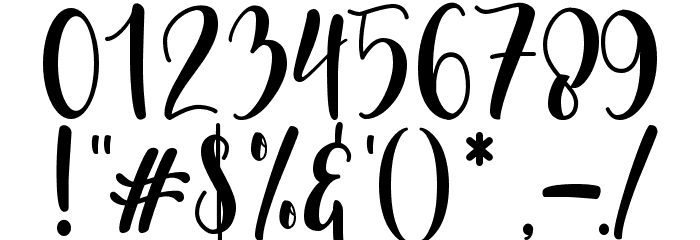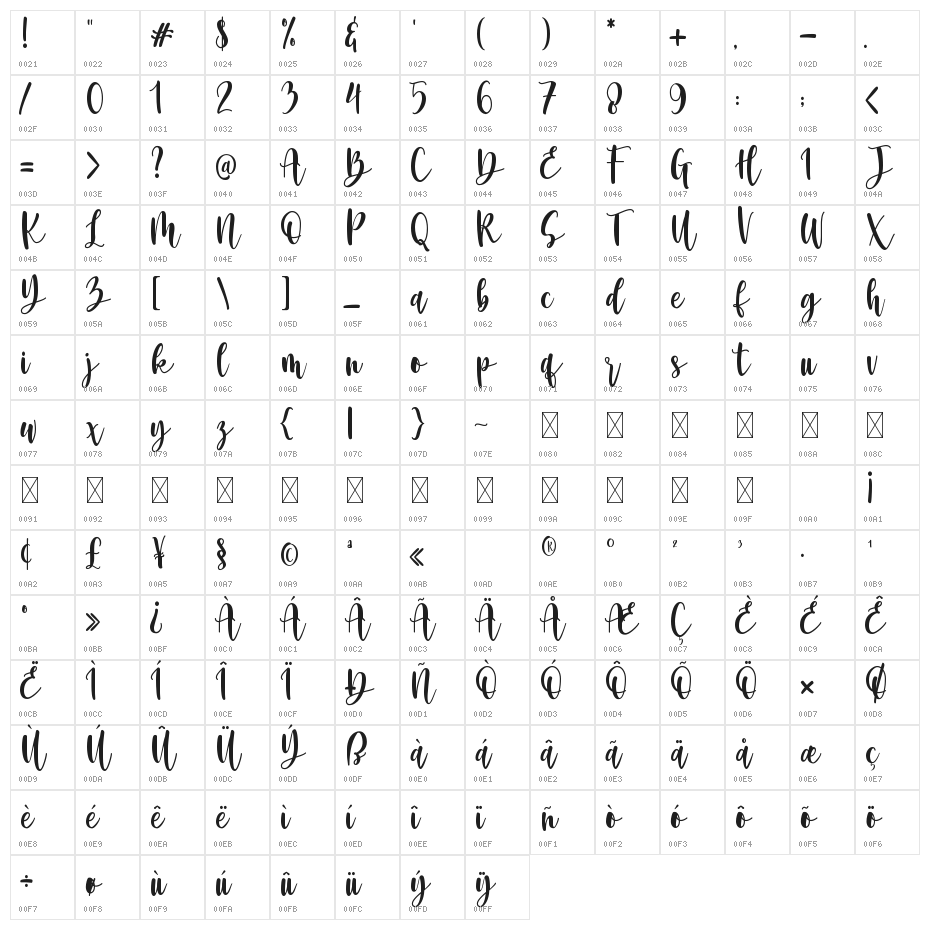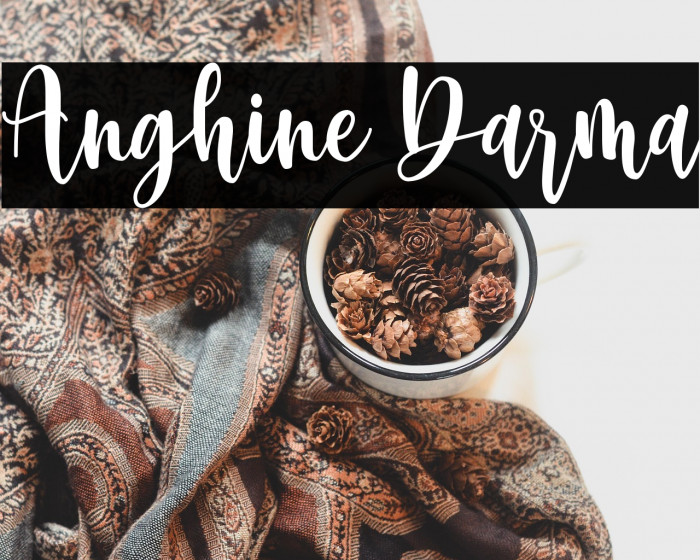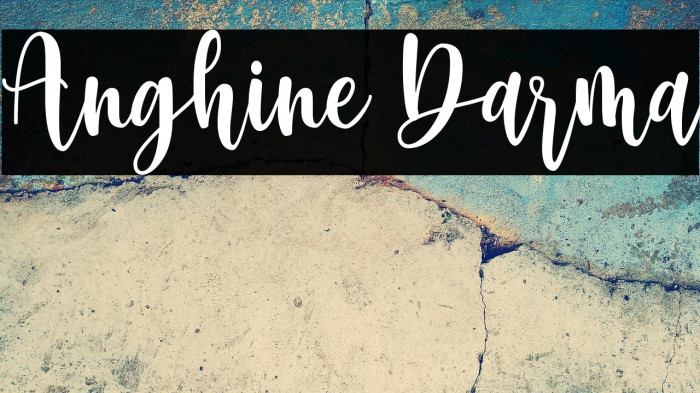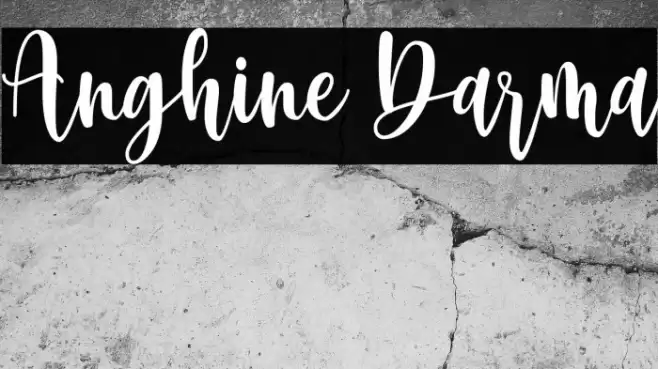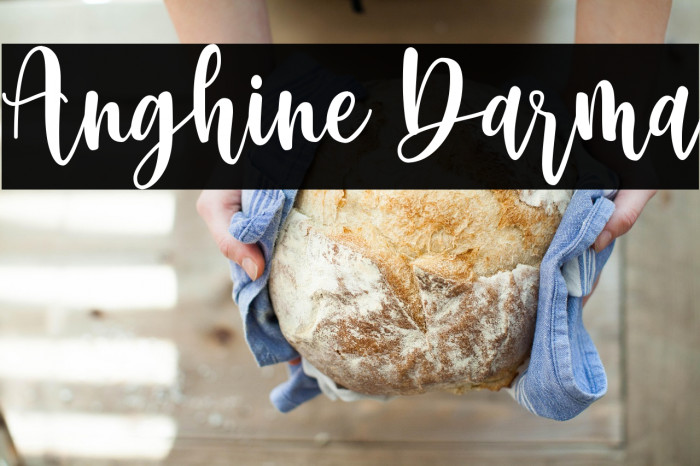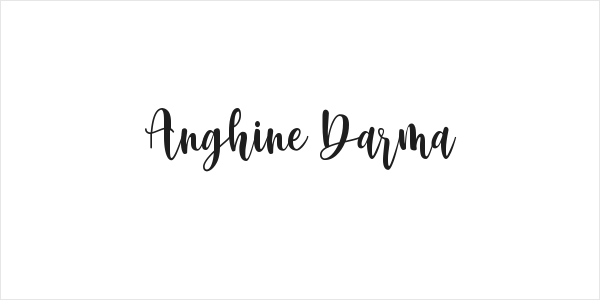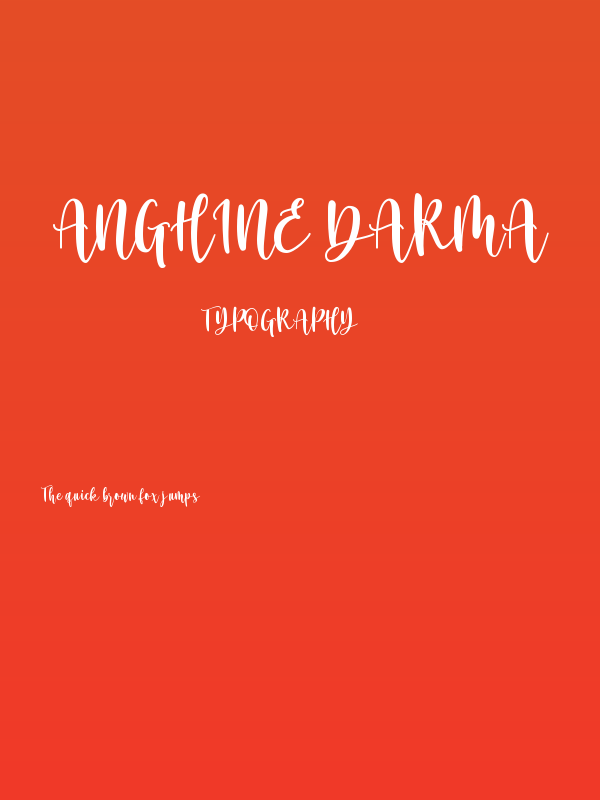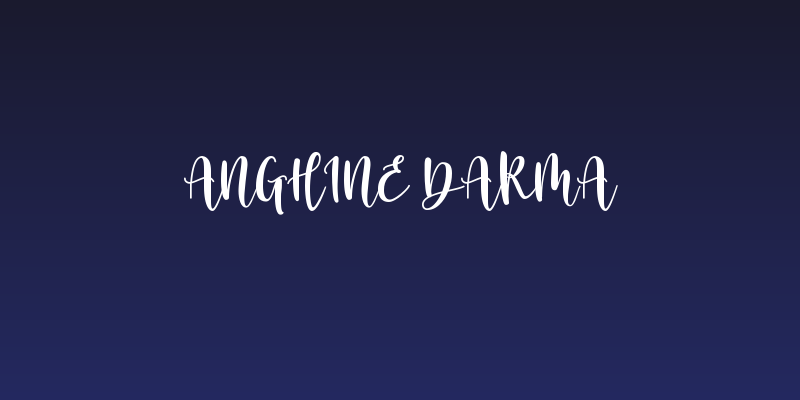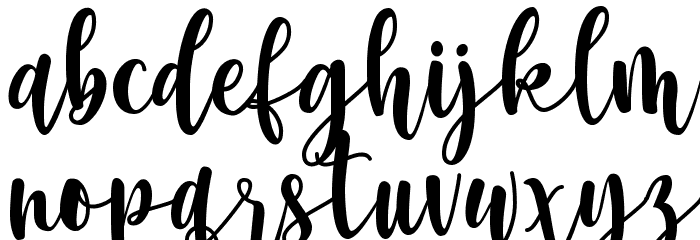
Anghine Darma Font
Anghine Darma Description
This font exudes a lively and dynamic handwritten style, characterized by its fluid and cursive letterforms. The uppercase letters are bold and expressive, with a playful tilt that adds a sense of movement. The lowercase letters maintain a consistent flow, enhancing the script-like appearance. Numbers and special characters are crafted with the same energetic flair, ensuring a cohesive look across all elements. The strokes are moderately thick, providing a balanced contrast that makes the text legible while retaining its decorative appeal. This font is perfect for projects that require a personal touch or a creative, informal vibe.
| Use Case | Logos, Invitations, Greeting Cards |
| Proposed Projects | Ideal for greeting cards, invitations, logos, and branding materials that seek a personal and creative touch. |